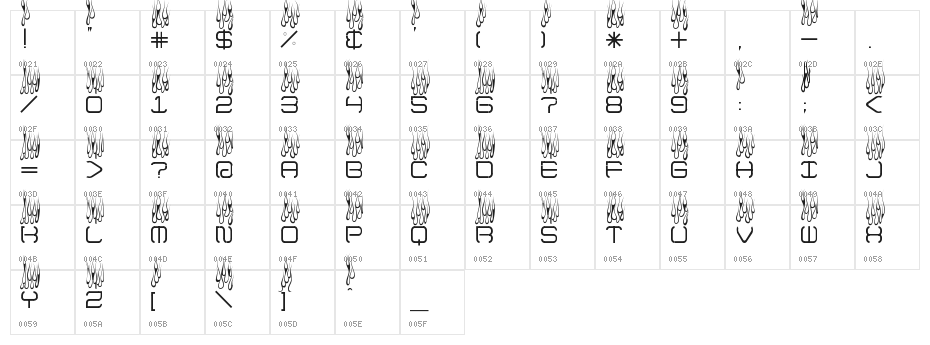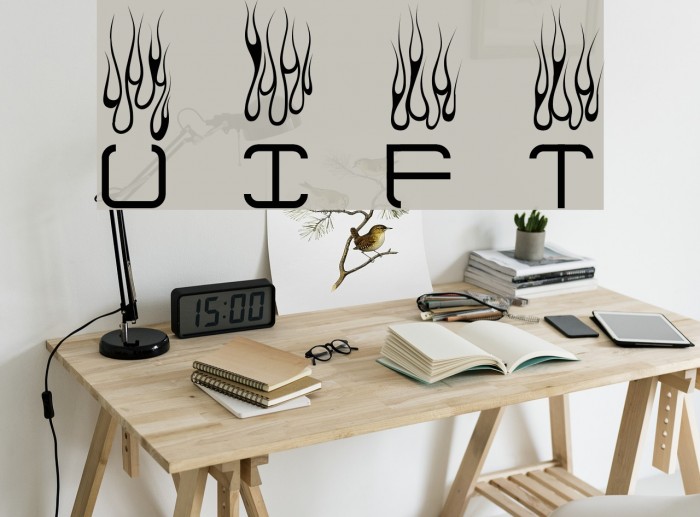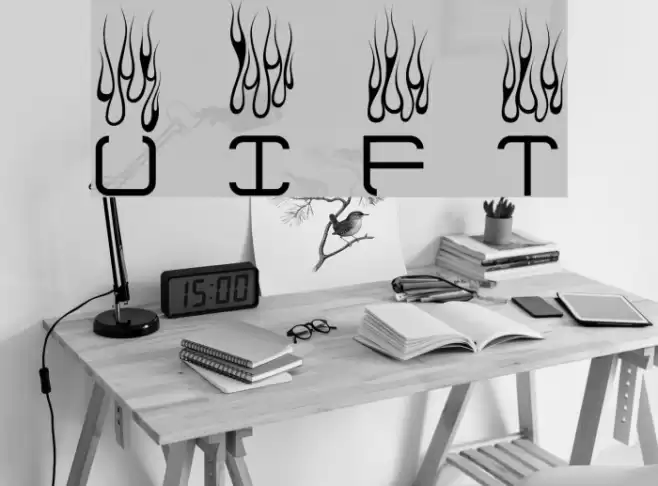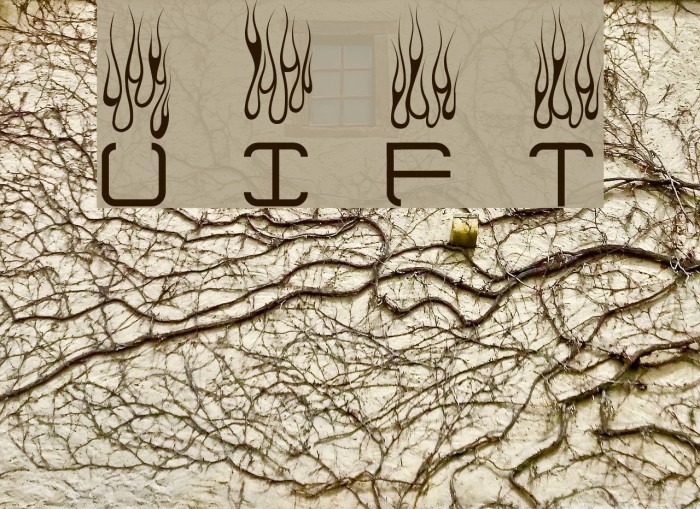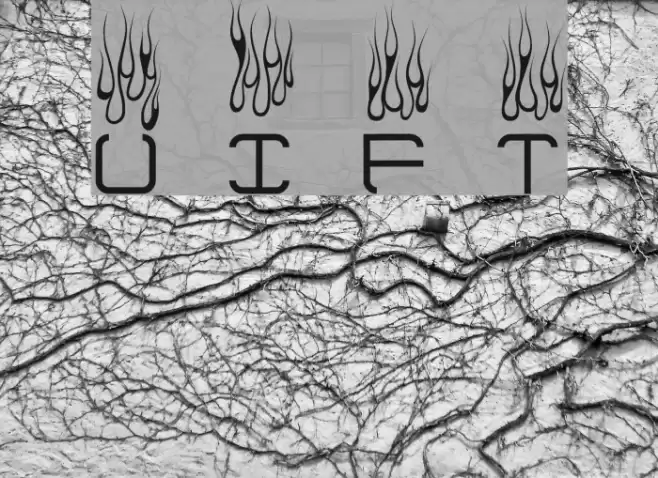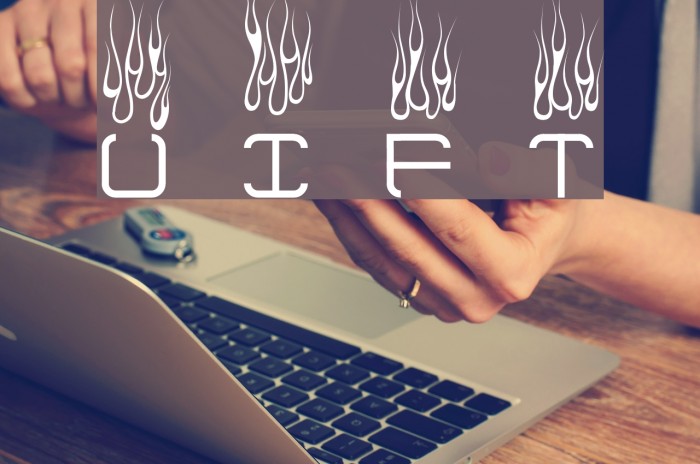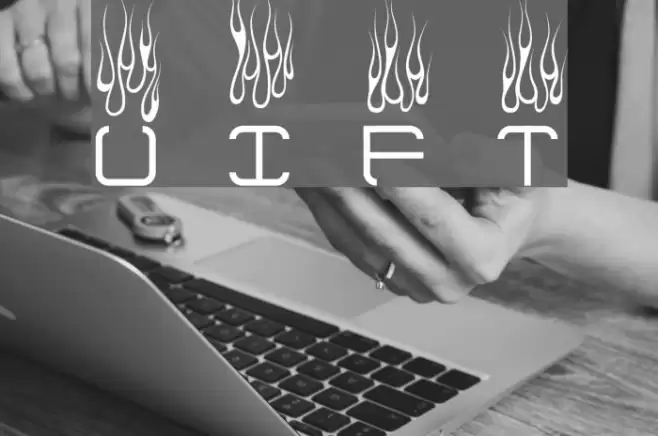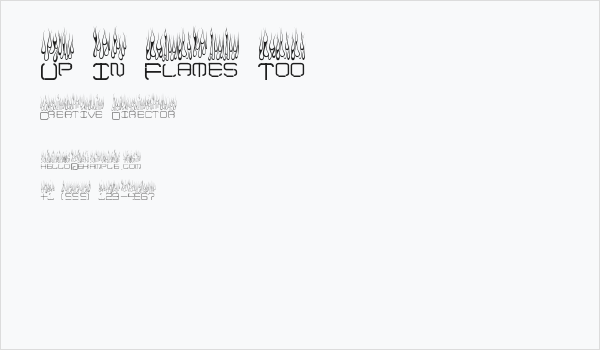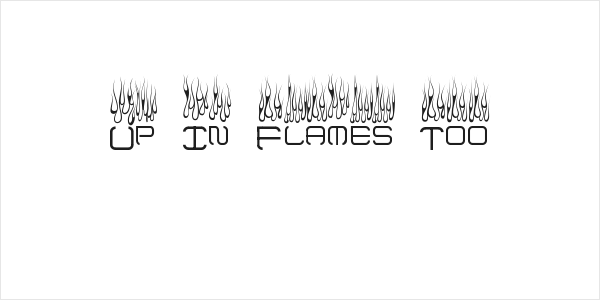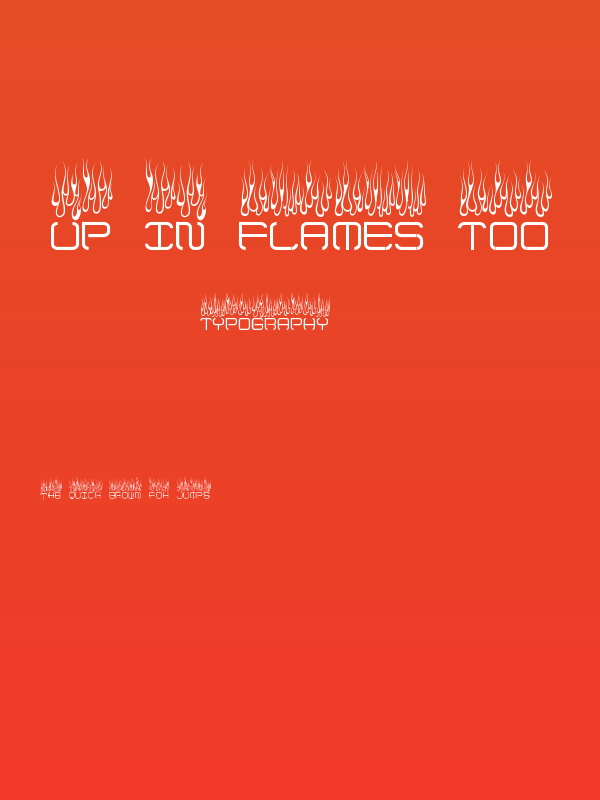
Up In Flames Too Font
Up In Flames Too Description
This font features a unique and striking design where each character is engulfed in stylized flames, creating a dynamic and energetic appearance. The characters are bold and geometric, with a modern sans-serif structure that is both clean and impactful. The flames add a decorative and edgy element, making the font ideal for projects that require a sense of excitement or intensity. The uppercase and lowercase letters maintain a consistent style, with numerals and special characters also following the fiery theme. The overall look is both cohesive and visually captivating, perfect for grabbing attention.
| Overall Style | Modern, Decorative |
| Proposed Projects | Ideal for use in music album covers, event posters, video game titles, or any project needing a bold, fiery aesthetic. |